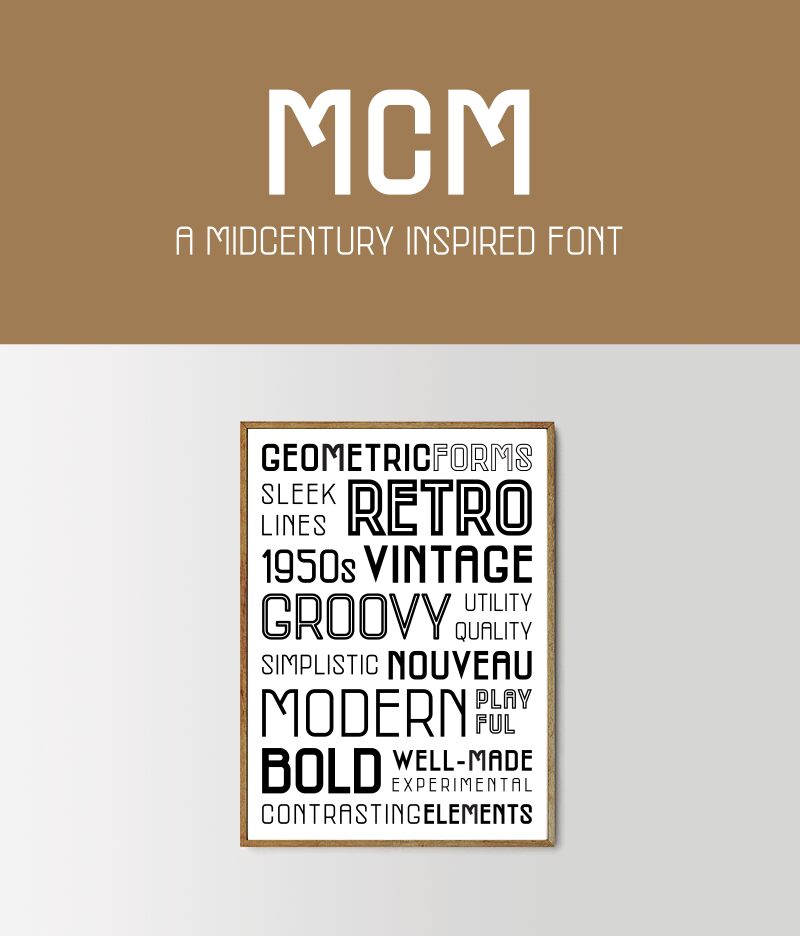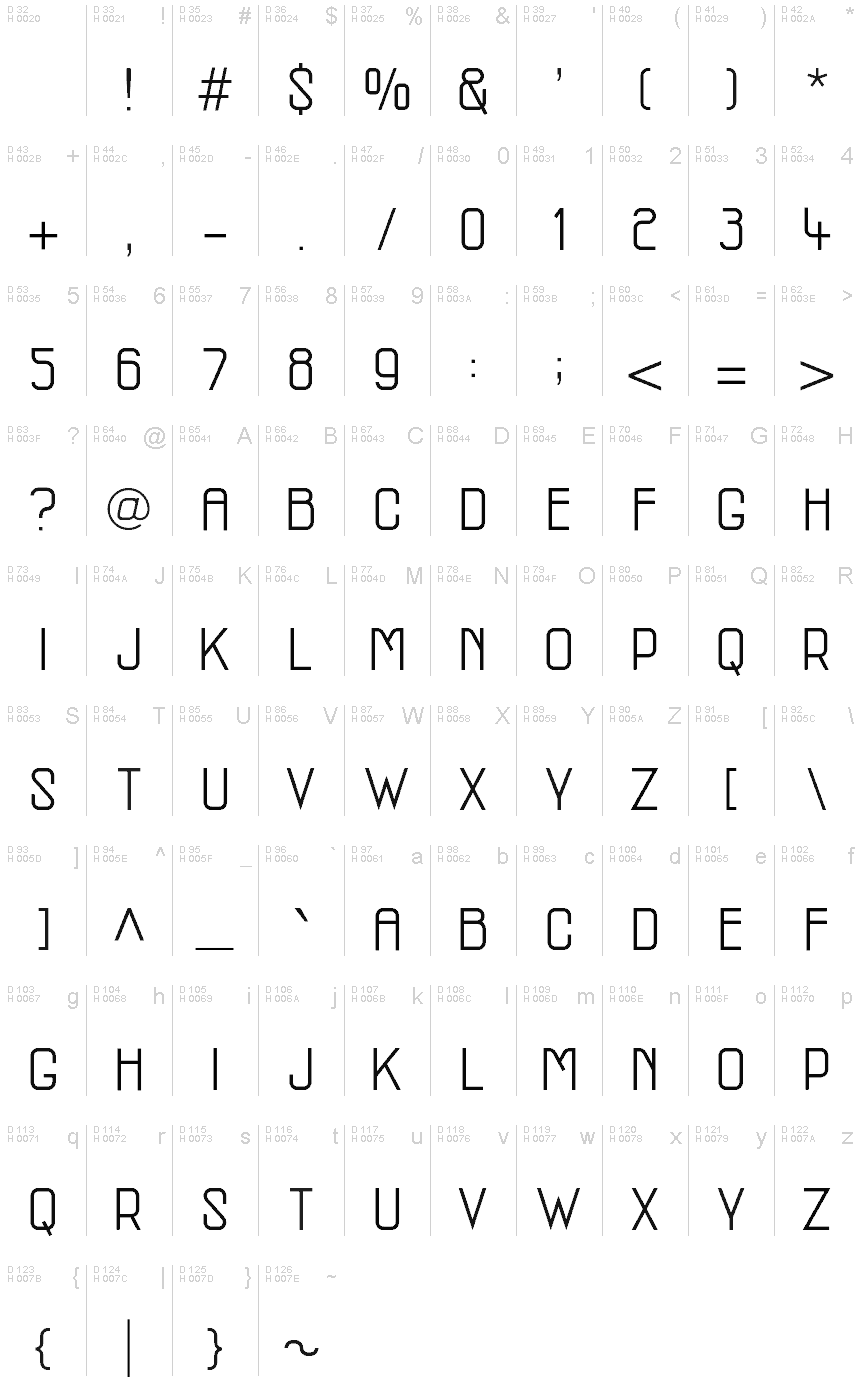
MCM-Regular
MCM, a captivating sans-serif font crafted by Rachel San, seamlessly blends mid-century charm with a modern, sophisticated elegance. This retro-inspired typeface exudes a timeless appeal, making it a versatile choice for headings, logos, and branding applications.
The MCM font's bold, uppercase letterforms command attention, while the clean lines and subtle curves lend an air of refinement. Its two distinct weights offer designers the flexibility to create striking visual hierarchies and balanced compositions.
Versatile and adaptable, the MCM font thrives in a wide range of design contexts, from vintage-inspired branding to contemporary marketing materials. Its retro-modern aesthetic makes it a compelling choice for those seeking to evoke a sense of nostalgia while maintaining a modern, polished appearance.